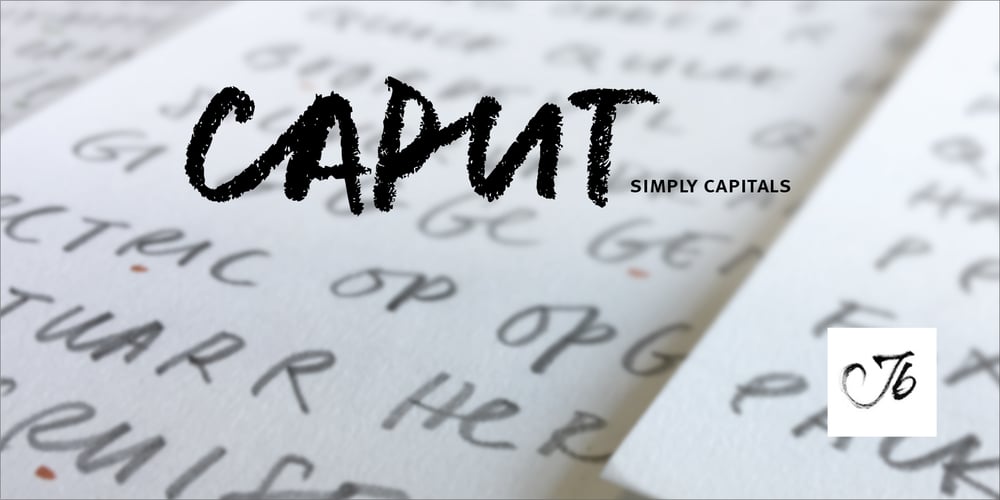
CAPUT Font Family was designed by published by JOEBOB graphics. CAPUT contains 1 styles and family package options. CAPUT is a typeface consisting of only capitals with the appearance of a handwritten font, due to the many ligatures. Written with a soft pencil, the resulting structure fits in with the quirky and raw look of the typeface. It’s very suitable for headlines, posters and packaging design. Enjoy!